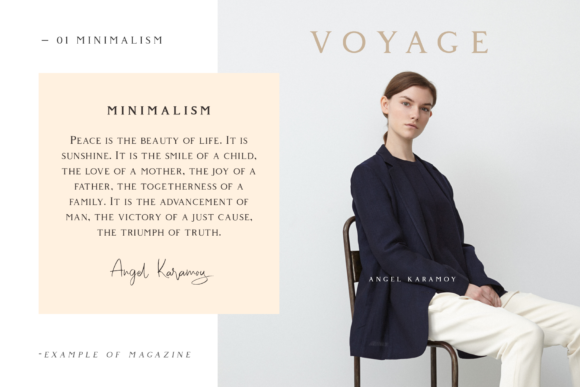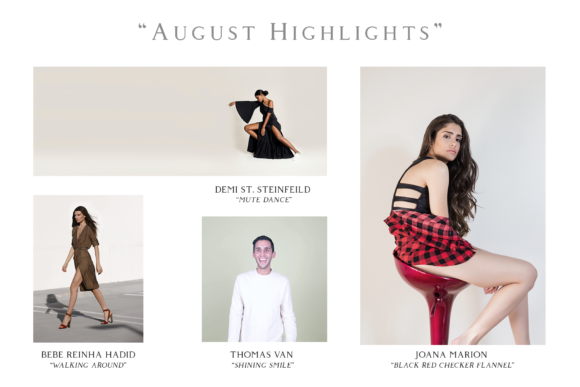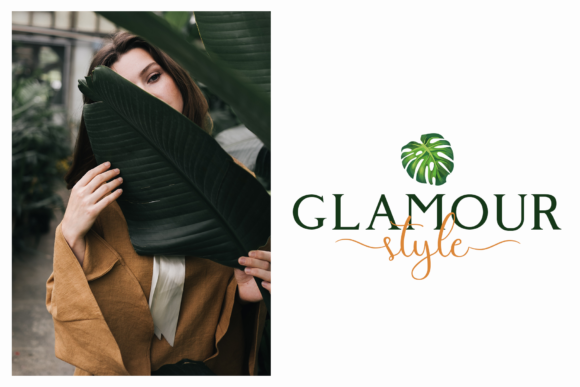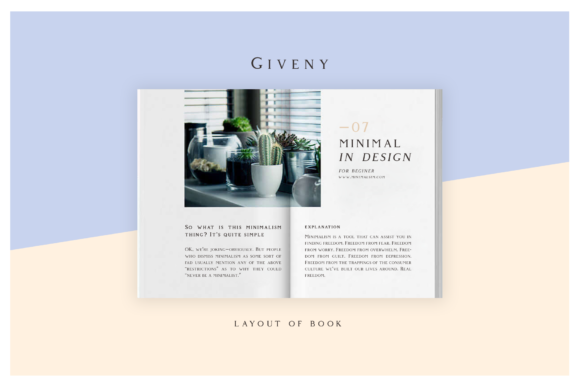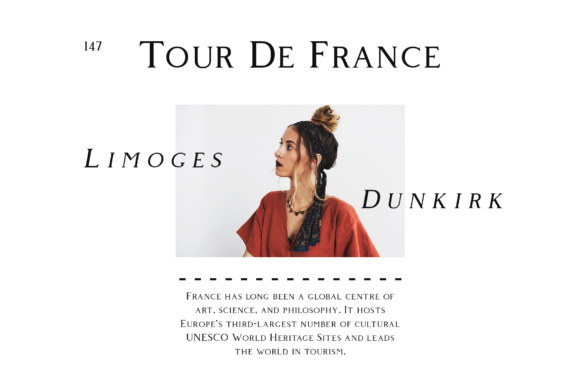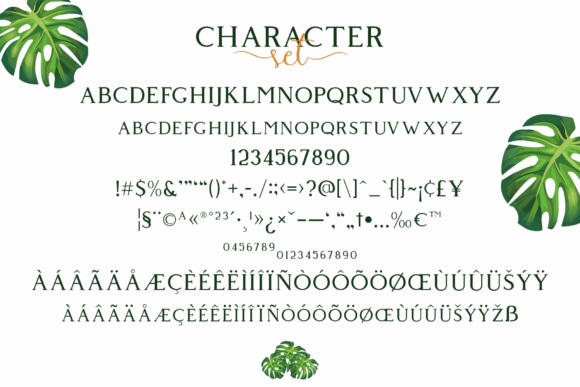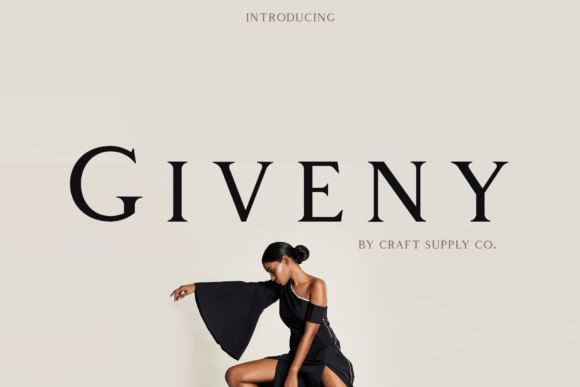
Introducing Giveny Font: A Classy Serif Font for Sophisticated Designs
Are you looking for a font that exudes elegance and sophistication? Look no further than Giveny Font, a classy serif font that embodies the style of transitional serifs. With its unique blend of geometric structure and optical balance, Giveny is perfect for designers and crafters seeking to add a touch of refinement to their projects.
Distinctive Features of Giveny Font
Giveny’s design is characterized by several distinctive features that set it apart from other serif fonts. One of its most notable features is the relatively low contrast of strokes, which gives it a subtle and understated appearance. The round characters also have a slightly squarish shape, adding a touch of modernity to the font. Additionally, Giveny’s businesslike nature makes it an excellent choice for professional designs, such as logos, branding, and stationery.
Crafted with Structural Logic
Giveny Font has been crafted from scratch with a structural logic that combines pure geometry and optical balance. This approach has resulted in a font that is not only aesthetically pleasing but also highly functional. The fusion of geometric structure and optical balance ensures that Giveny is easy to read and versatile enough to be used in a variety of design applications.
A Fusion of Styles
One of the most impressive aspects of Giveny Font is its ability to combine a variety of styles. This makes it an excellent choice for designers who want to create unique and eye-catching designs. Whether you’re working on a logo, greeting card, quote, poster, or blog header, Giveny is a versatile font that can adapt to any design style.
Giveny Font is suitable for a wide range of design applications, including:
- Logos: Giveny’s classy and sophisticated design makes it an excellent choice for logos that require a professional and elegant look.
- Greeting cards: The font’s subtle and understated appearance makes it perfect for greeting cards that require a touch of elegance.
- Quotes: Giveny’s businesslike nature and geometric structure make it an excellent choice for quotes that require a professional and modern look.
- Posters: The font’s versatility and adaptability make it perfect for posters that require a bold and eye-catching design.
- Branding: Giveny’s unique blend of geometric structure and optical balance makes it an excellent choice for branding projects that require a sophisticated and professional look.
- Name card: The font’s classy and elegant design makes it perfect for name cards that require a professional and understated appearance.
- Stationery: Giveny’s businesslike nature and geometric structure make it an excellent choice for stationery designs that require a professional and modern look.
- Design title: The font’s versatility and adaptability make it perfect for design titles that require a bold and eye-catching design.
- Blog header: Giveny’s classy and sophisticated design makes it an excellent choice for blog headers that require a professional and elegant look.
- Art quote: The font’s subtle and understated appearance makes it perfect for art quotes that require a touch of elegance.
- Typography: Giveny’s unique blend of geometric structure and optical balance makes it an excellent choice for typography projects that require a sophisticated and professional look.
In conclusion, Giveny Font is a classy serif font that is perfect for designers and crafters seeking to add a touch of sophistication and elegance to their projects. With its unique blend of geometric structure and optical balance, Giveny is versatile enough to be used in a variety of design applications. Whether you’re working on a logo, greeting card, quote, poster, or blog header, Giveny is an excellent choice for any design project that requires a professional and elegant look.